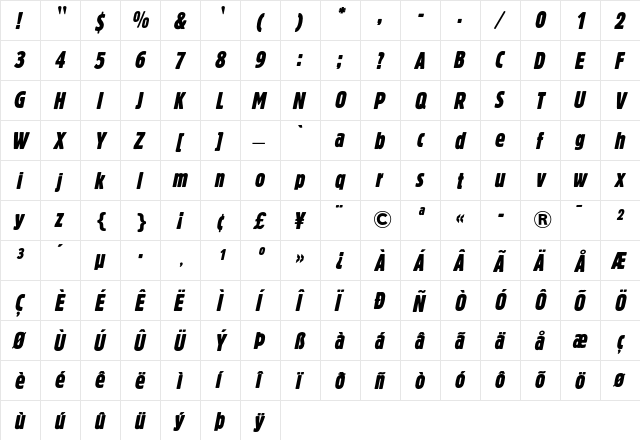
Block Berthold Extra Condensed Italic
Design Context for Block Berthold Typeface
Block Berthold is a composed and adaptable typeface that performs quietly and consistently across a wide range of design contexts. The slanted form adds forward momentum and visual energy. The condensed width makes it efficient for tight spaces without sacrificing legibility.
Pro Tip: Use Block Berthold for emphasis, pull quotes, and subheadings where its slanted energy can add rhythm to the layout.